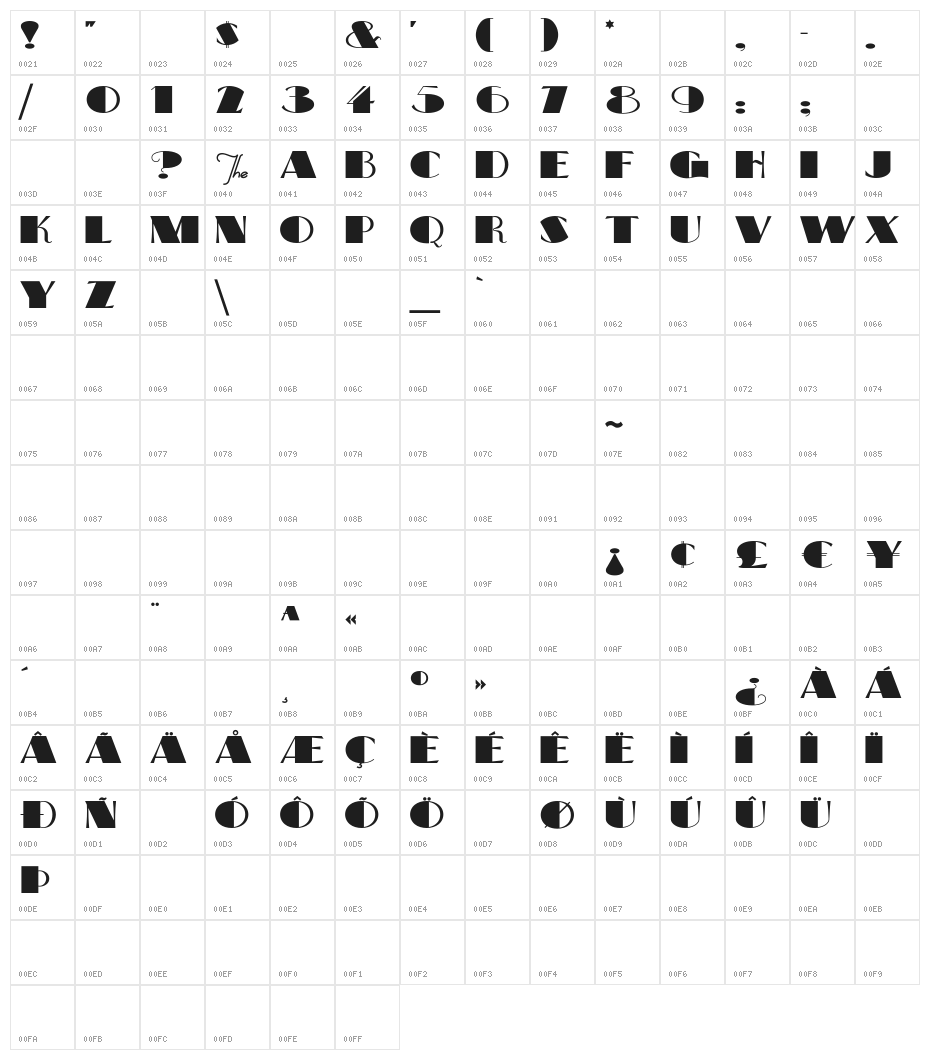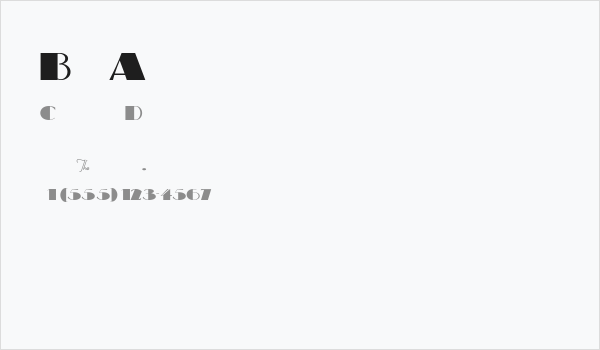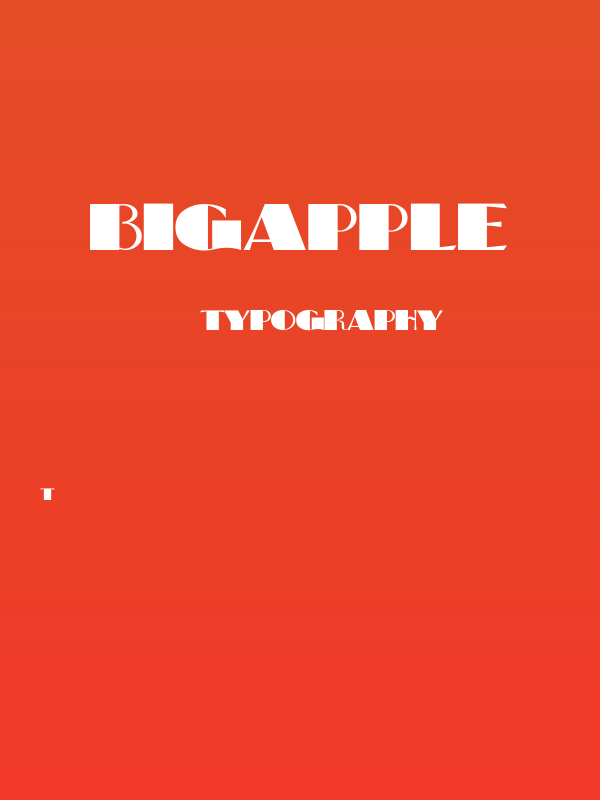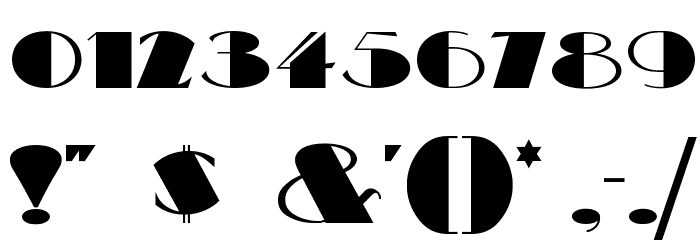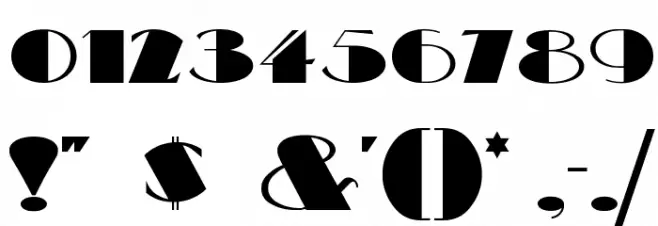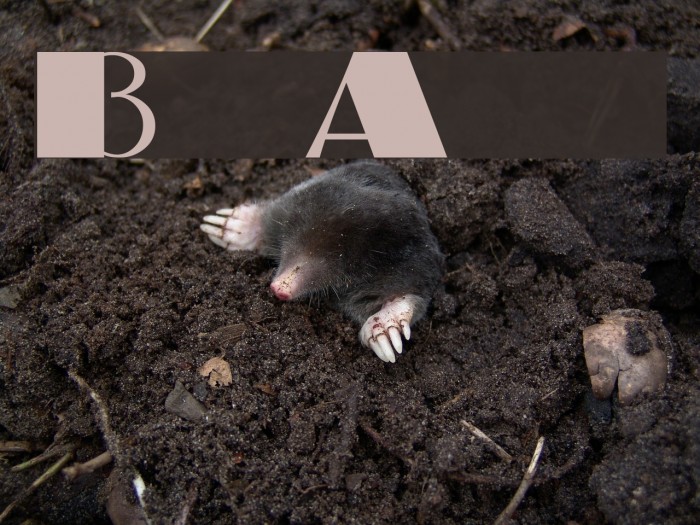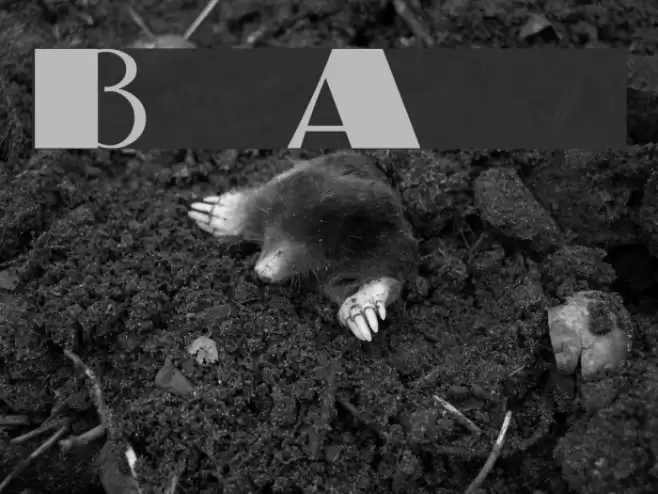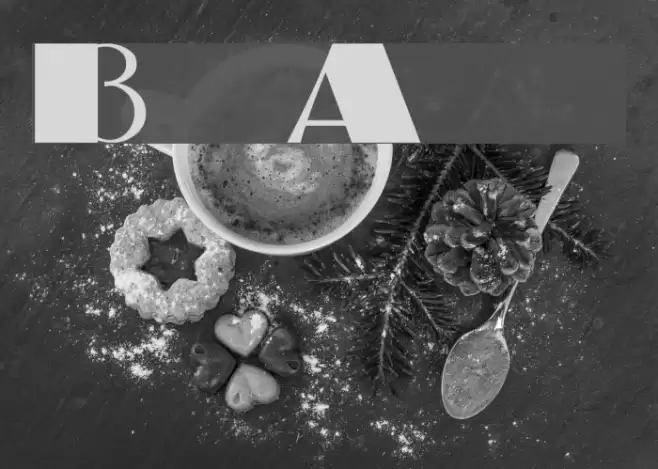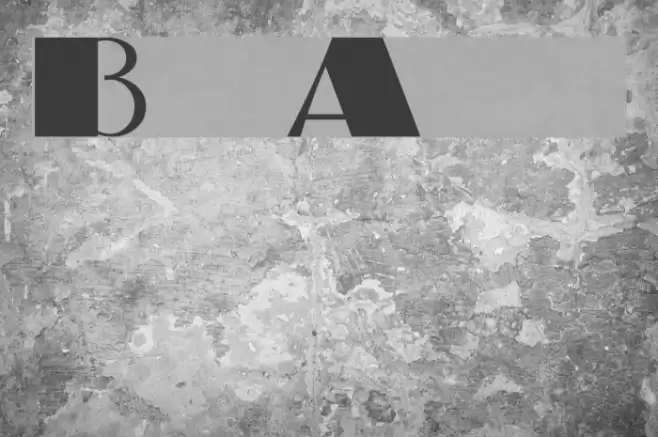
BigApple Font
✎ Art Deco
BigApple Description
This font features a bold and striking design with a high contrast between thick and thin strokes, creating a dramatic and eye-catching appearance. The uppercase letters are particularly wide and have a geometric, almost Art Deco influence, with sharp angles and clean lines. The numbers and special characters maintain this bold style, ensuring consistency across all characters. The font's unique style makes it ideal for projects that require a strong visual impact.
| Width | Expanded |
| Overall Style | Modern, Decorative |
| Proposed Projects | Ideal for branding, poster design, headlines, and any project needing a bold statement. |